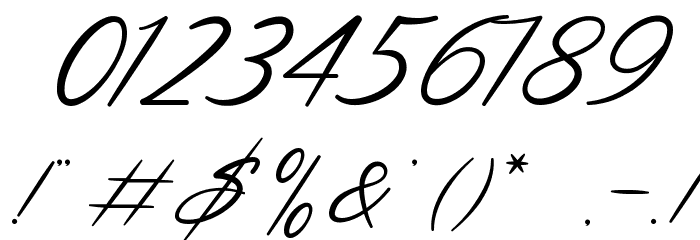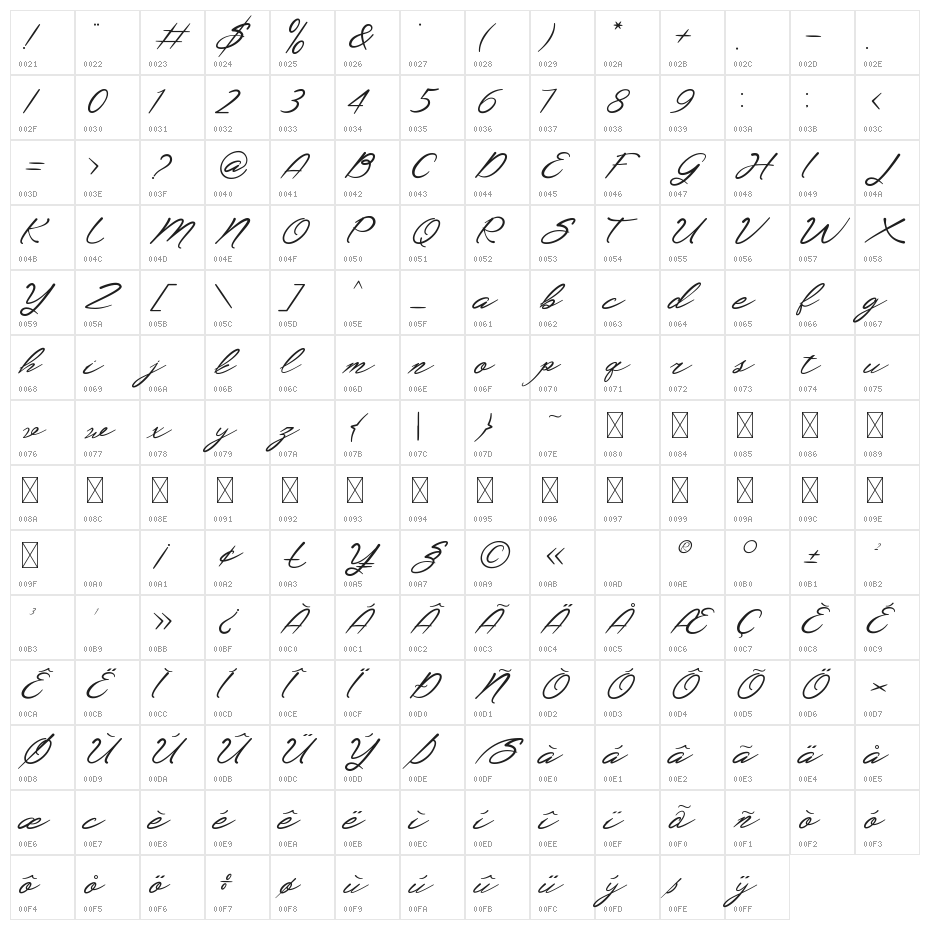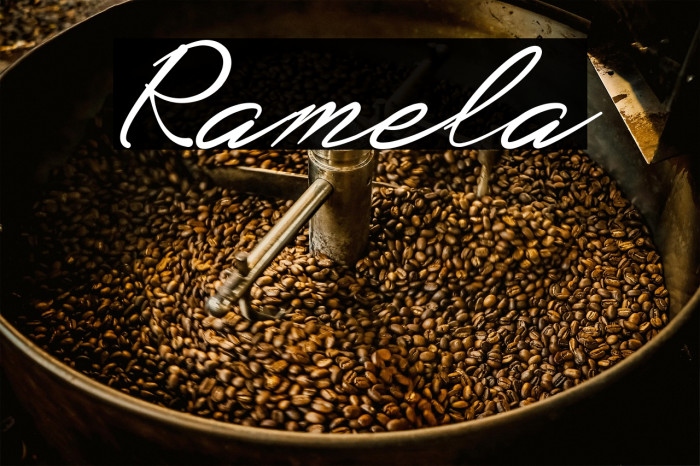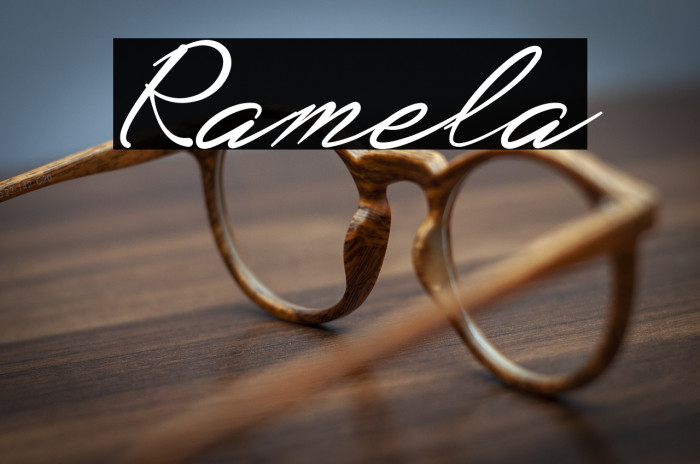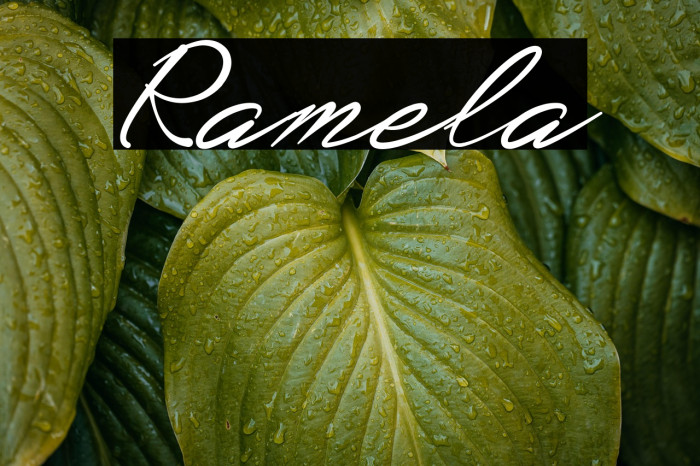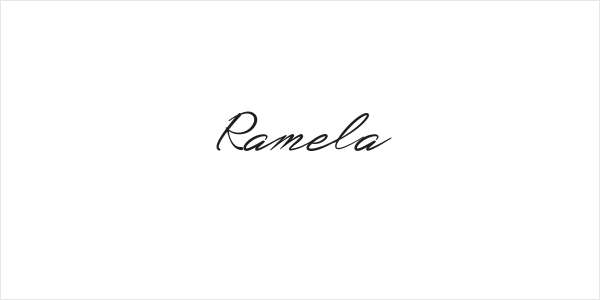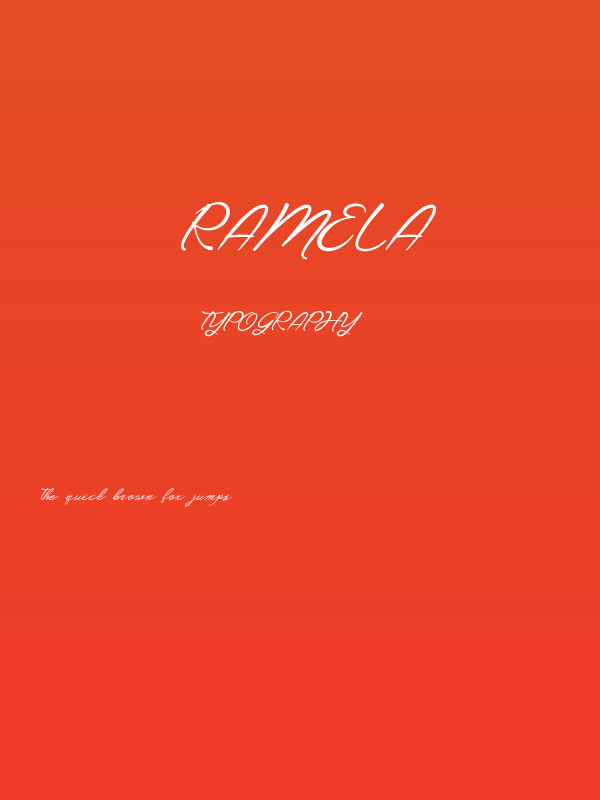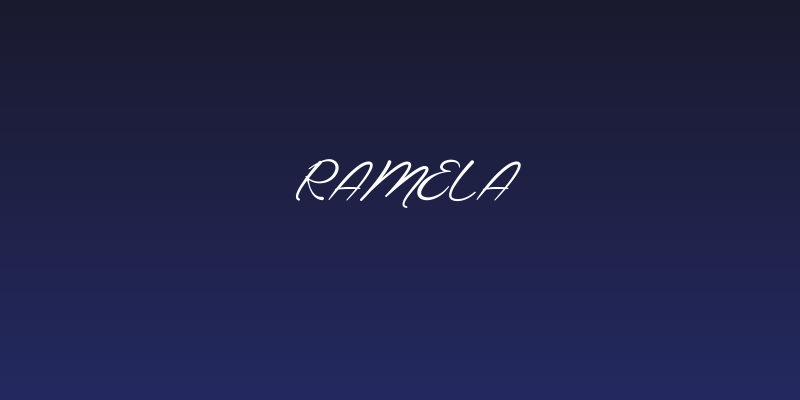
Ramela Font
This elegant script font features a flowing, cursive style that mimics natural handwriting. The letters are connected, creating a seamless and fluid appearance. The uppercase letters are slightly more ornate, with graceful loops and curves, while the lowercase letters maintain a consistent rhythm and balance. The numerals are clear and legible, complementing the overall style. Special characters are thoughtfully designed to match the script's aesthetic, making it versatile for various uses.
A flowing, cursive script font with elegant, connected letters.
- Proposed Projects: Ideal for wedding invitations, greeting cards, personal branding, and elegant packaging designs.
- Overall Style: Elegant
- Use Case: Logos, Invitations, Personal Branding